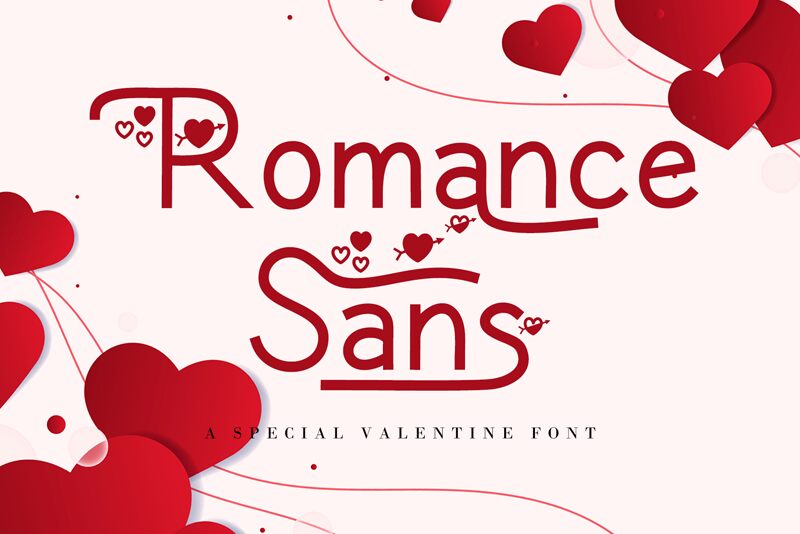
Romance Sans by AEN Creative Studio 2021 is a light, sans serif font with a modern valentine style. Its playful design makes it perfect for creating anything from greeting cards to wedding invitations. It's also great for projects that require an extra touch of romantic flair.
Presentazione e campione visivo del carattere Romance Sans